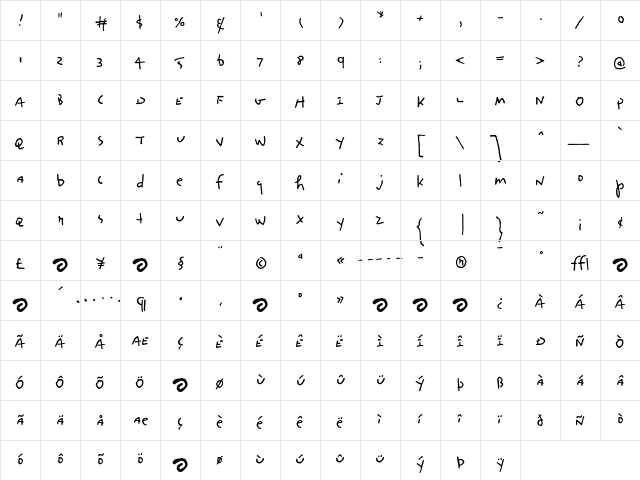
Dizzy Regular
Design Context for Dizzy Typeface
Dizzy is a composed and adaptable typeface that performs quietly and consistently across a wide range of design contexts.